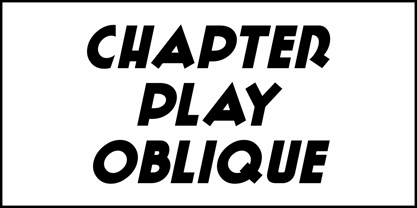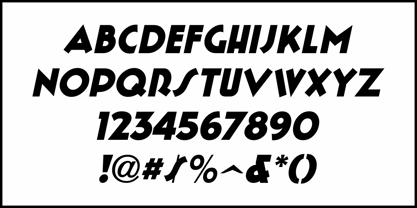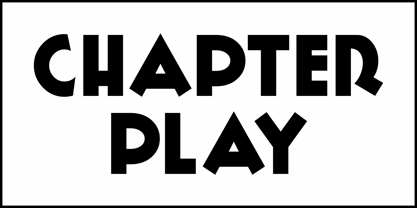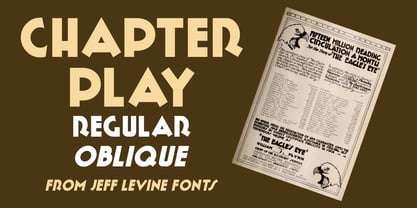
Chapter Play JNL
by Jeff Levine
An ad in the May 11, 1918 issue of The Exhibitor's Herald for a movie serial entitled "The Eagle's Eye" was hand lettered in a bold sans serif style with early Art Deco influences.
This is now available as Chapter Play JNL in both regular and oblique versions.
('Chapter Play' is another term for a movie serial.)